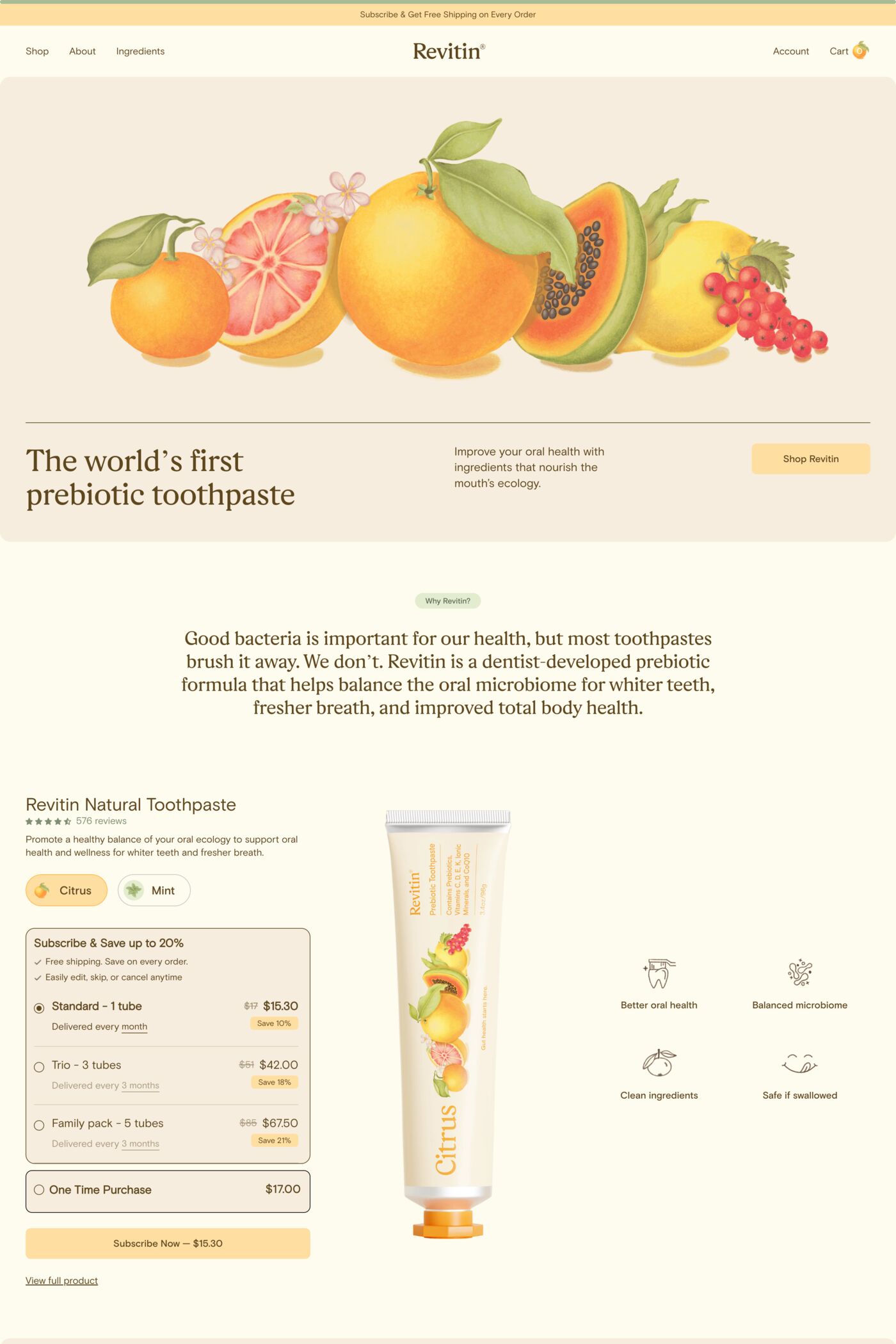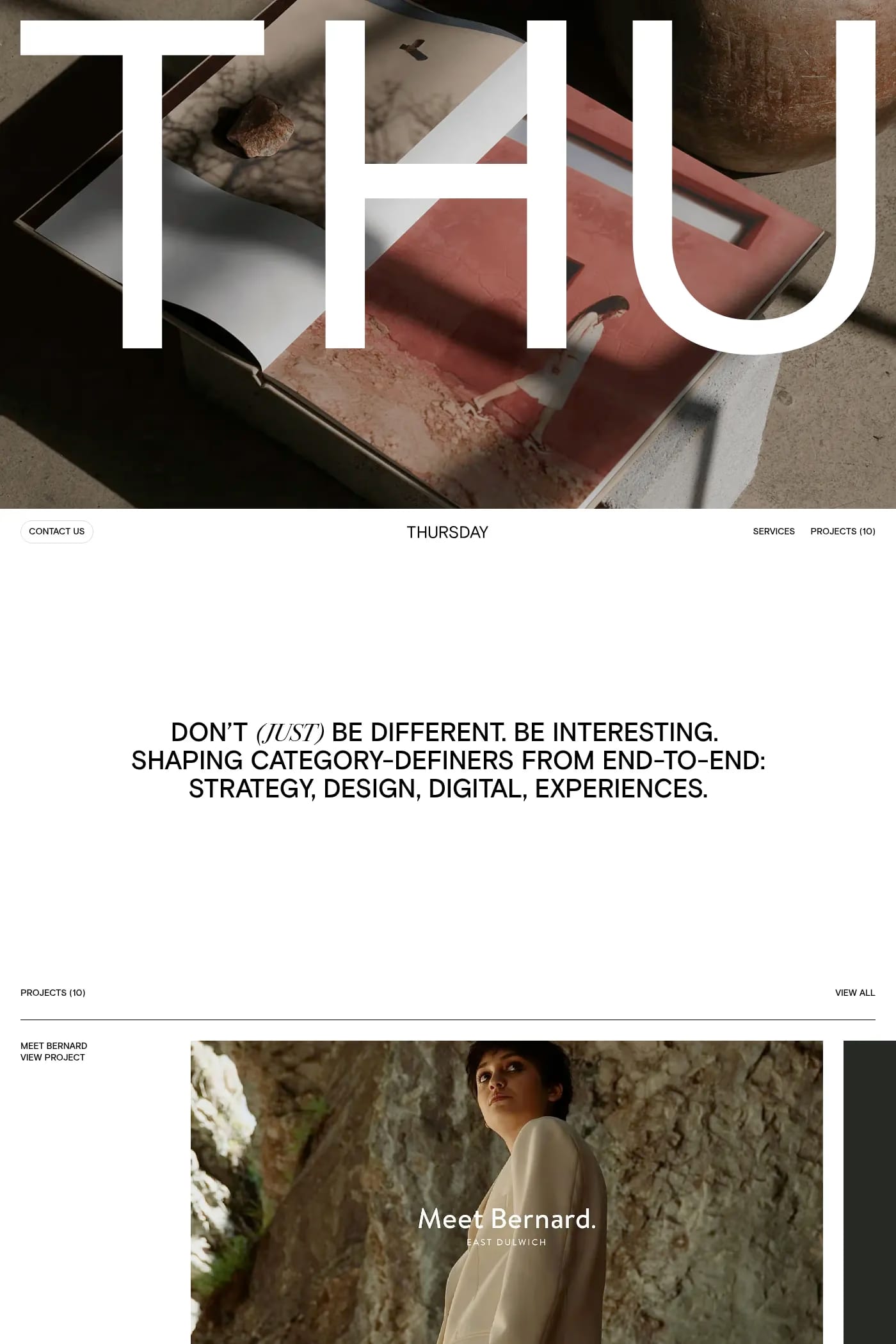
Basis Grotesque is a sans-serif typeface from Colophon.
Basis Grotesque is a Grotesque font family from Colophon Foundry. It features five weights in both regular and italic as well as four monospaced weights in regular and italic.